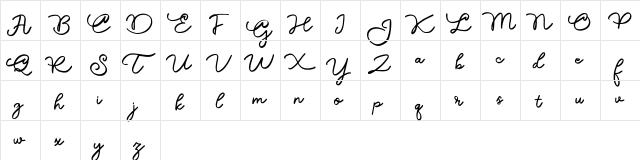
Zillion FREE Regular
Design Context for Zillion FREE Typeface
Zillion FREE is a composed and adaptable typeface that performs quietly and consistently across a wide range of design contexts.